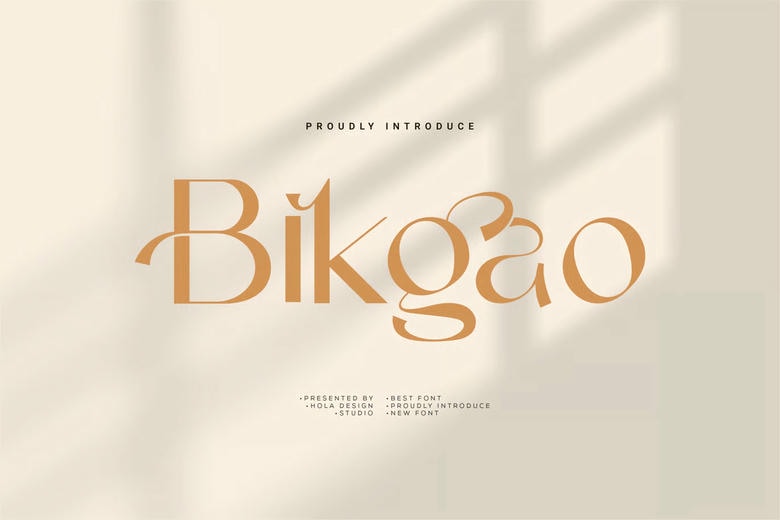
Bikgao Font
Bikgao is a high-quality sans-serif font created by holadesignstd. You can download it for free and use it for personal projects. It works well for labels, movie scenes, posters, titles, gigs, album covers, logos, and more.
Bikgao Sans Serif Font